1300 years
A jubilee is celebrated in a big way: 1300 years of Korbinian in Freising. The anniversary design is based on the basic elements of Freising’s new corporate design and manages the balancing act between the city and the church, the two main senders.
Following the successful implementation of the new corporate design for the city of Freising, our approach focused on developing a cohesive and festive visual identity that reflects the historical significance and vibrant community spirit of Freising.
Anniversary parade
At first glance, the key visual appears colorful and cheerful. On closer inspection, however, it reveals a deliberate symbolism that is waiting to be discovered. The centerpiece of the anniversary design is the key visual. It captures the distinctive attributes of Saint Korbinian and the city of Freising. The clear division of the key visual reflects the distinction between the ecclesiastical and secular elements, giving the overall image a balanced symmetry. The bold key visual of the anniversary, which can also be used as a very small logo, brings joy through its modularity.
Korbinicons became custom Icon ColorFont
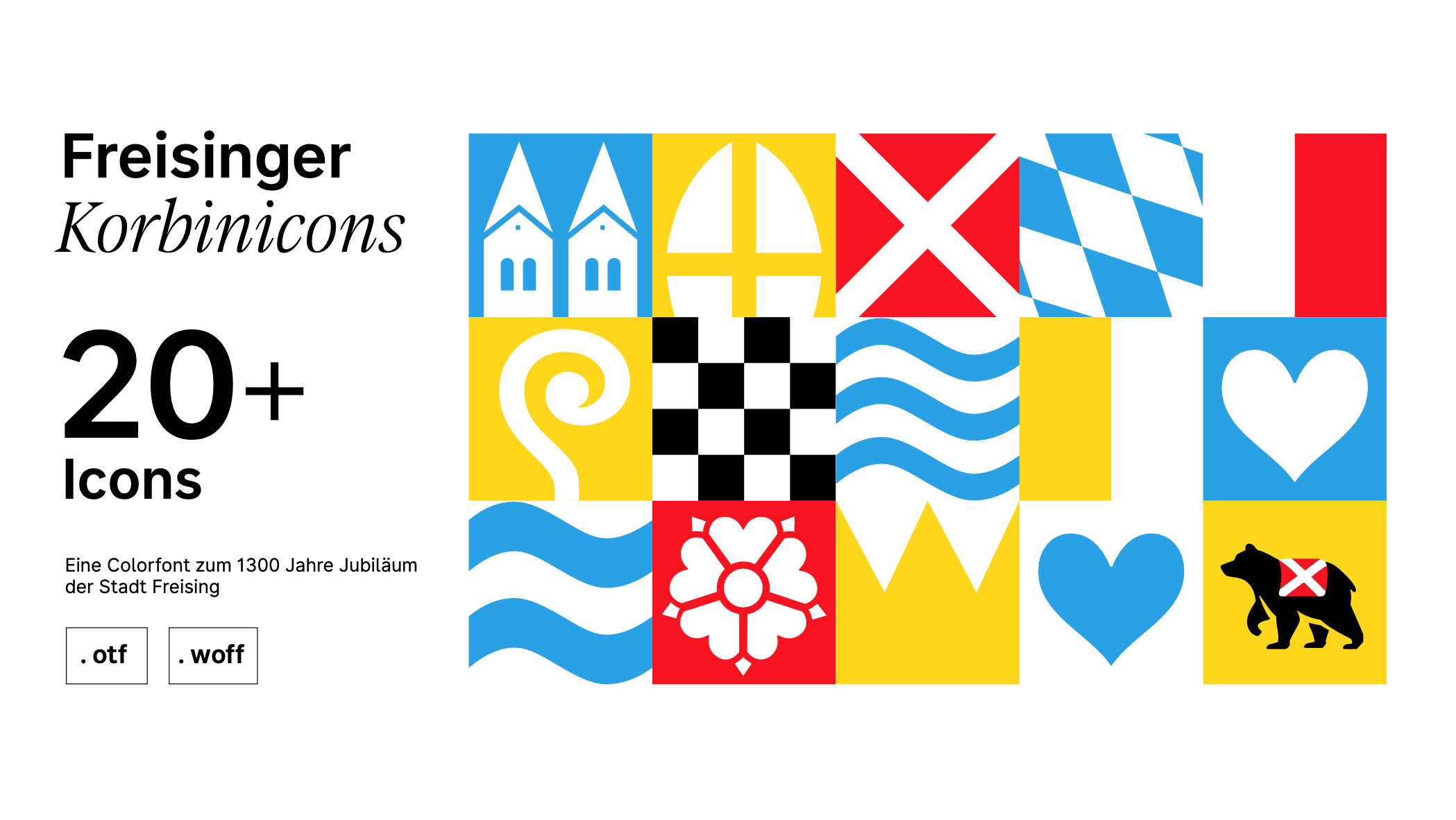
The full set of “Korbinicons” is placed in a ColorFont, making it easy to position them next to each other to create a vibrant and cheerful layout. This encourages everyone to get involved, from the renowned Weihenstephan brewery to the local chocolaterie.
From paper bag to packaging. To hand out all the media produced, we thought of a colorful paper bag that could hold the magazine and some other products with the festive design. Often, the medium provides new opportunities, as the 1300 pops up unexpectedly when the bag is fully opened.
The bags are custom-sized and composed of 100% cotton. They are produced and screen printed with the company’s vibrant corporate colors. Made by WERC from Passau.
The evolution of Korbinian’s bundle
The Korbinian bundle in particular should continue to play a formative role for Freising. After all, it is a good way to tell the story of Freising: The Korbinian bear has made its contribution as a carrier. Anchored in modular form of the anniversary logo we indirectly think of the bear.
Now it is up to the people of Freising to do their bit. The parcel thus becomes a new symbol of solidarity. The “red bundle tied with silver ribbons” can now no longer only be found on the city's coat of arms, but is also available throughout the city in the striking form of rucksacks, bags and rental bicycles.
Jubilee magazin for everybody
The city is also putting together a big anniversary magazine meant to be for everyone with 84 pages, 15 authors, and a print run of 50,000 copies. It's being printed on IGEPA’s high-quality Magno Volume by the local printer Lerchl Druck.
To fit in with all the festive themes around the 1300th anniversary, we added a festive font to the anniversary design. Pensum Display works great with the corporate font Freising Sans, and it adds a graceful image to the striking design. The cover illustration by Viola Konrad brings the key visual to life with people celebrating and some of Freising’s most famous personalities.
Custom Illustrations
The custom cover illustration by Viola Konrad celebrates well-known Freising personalities who are hidden in a wimmel-picture waiting to be discovered:
01 Otto of Freising
Bishop and philosopher of history
02 Katharina Mair
Citizen and early supporter of the Reformation in Freising (among other things, she cooked bacon dumplings during Lent, which was forbidden for religious reasons)
03 Jakob Roider (Roider Jackl)
Gstanzl singer and humorist
04 Paula Weber-Schäfer
Businesswoman and local politician (often with a dog in her arms)
05 Therese von der Vring
Expressionist painter from Freising
06 Johann Franz Eckher von Kapfing and Liechteneck
Prince-Bishop of Freising from 1695/96 to 1727
07 Father Carl Meichelbeck
Historian and author of the Historia Frisingensis from 1724
Beer label design for Weihenstephan
The world’s oldest brewery has developed a special anniversary beer: A Zwicklbier made with Perle hops from Hallertau and light barley malt.
This naturally cloudy Helles is enhanced with IGEPAs label paper Trevi Verge, which gives it a natural feel thanks to its ribbed texture. The beer, featuring a striking anniversary design, has already gained many fans, necessitating a third round of brewing. Honestly, designing a beer label was one of our biggest dreams that came true :)
Actually, we are quite sad that the jubilee is over now, especially because of the loss of this tasty beer.
All over the city of Freising, the streets are decorated with flags that commemorate the anniversary throughout the year.